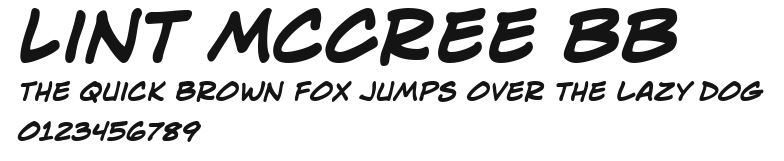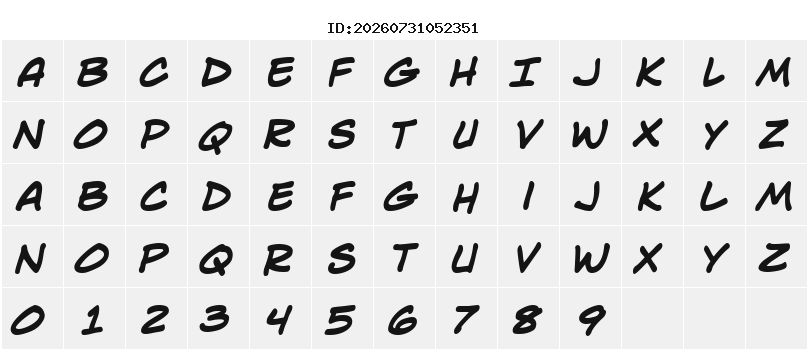
• Font Name: Lint McCree BB
• Font ID: Nate Piekos BB
• Full Font Name: Lint McCree BB Bold
• PostScript Name: LintMcCreeBBBold
About Lint McCree BB.ttf
Lint McCree BB.ttf is a modern, elegant sans-serif font designed for ultimate readability and visual harmony. Perfect for branding, headlines, web design, and print materials.